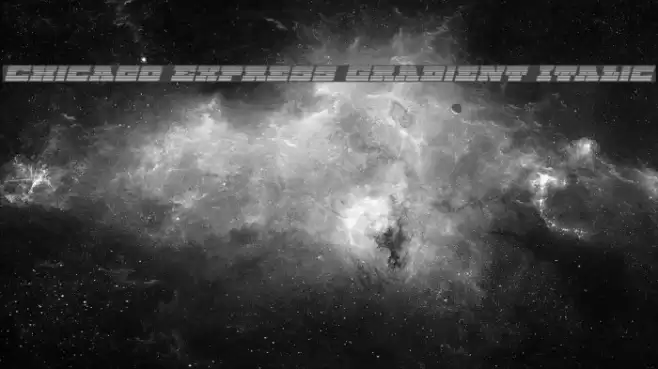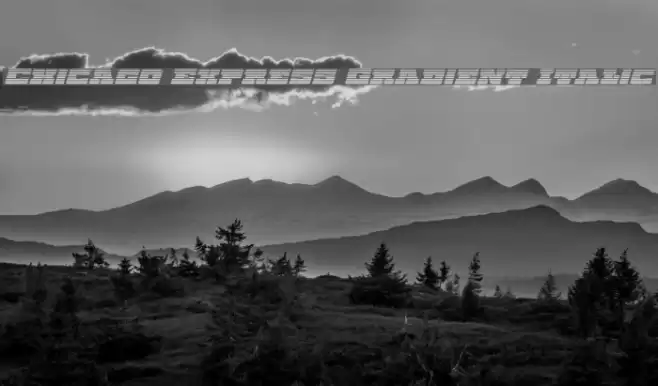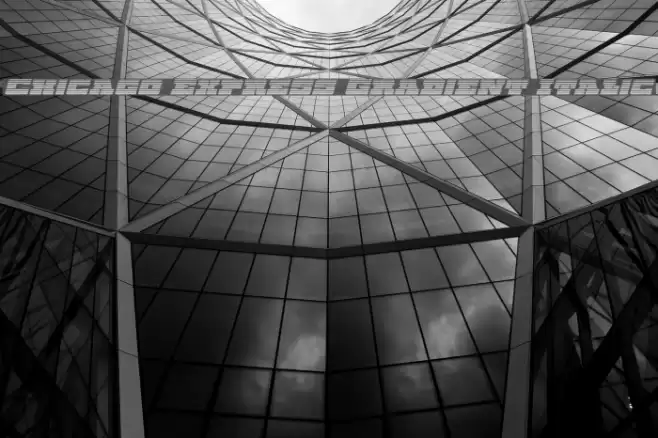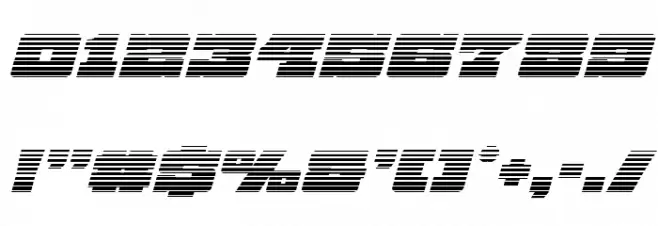
Chicago Express Gradient Italic Font
Chicago Express Gradient Italic Description
This font features a bold, italicized style with a distinctive gradient effect created by horizontal lines that give it a dynamic, fast-paced appearance. The characters are wide and have a futuristic, digital feel, making them stand out with a unique visual impact. The uppercase and lowercase letters maintain a consistent design, while the numbers and special characters complement the overall aesthetic. This font is ideal for projects that require a modern and energetic look, such as sports branding, technology-focused designs, or any creative work that aims to convey speed and innovation.
A bold, italicized font with a gradient effect and a futuristic, dynamic style from Uncategorized fonts.
- Proposed Projects: Ideal for sports branding, tech designs, and creative projects emphasizing speed and innovation.
- Width: Expanded